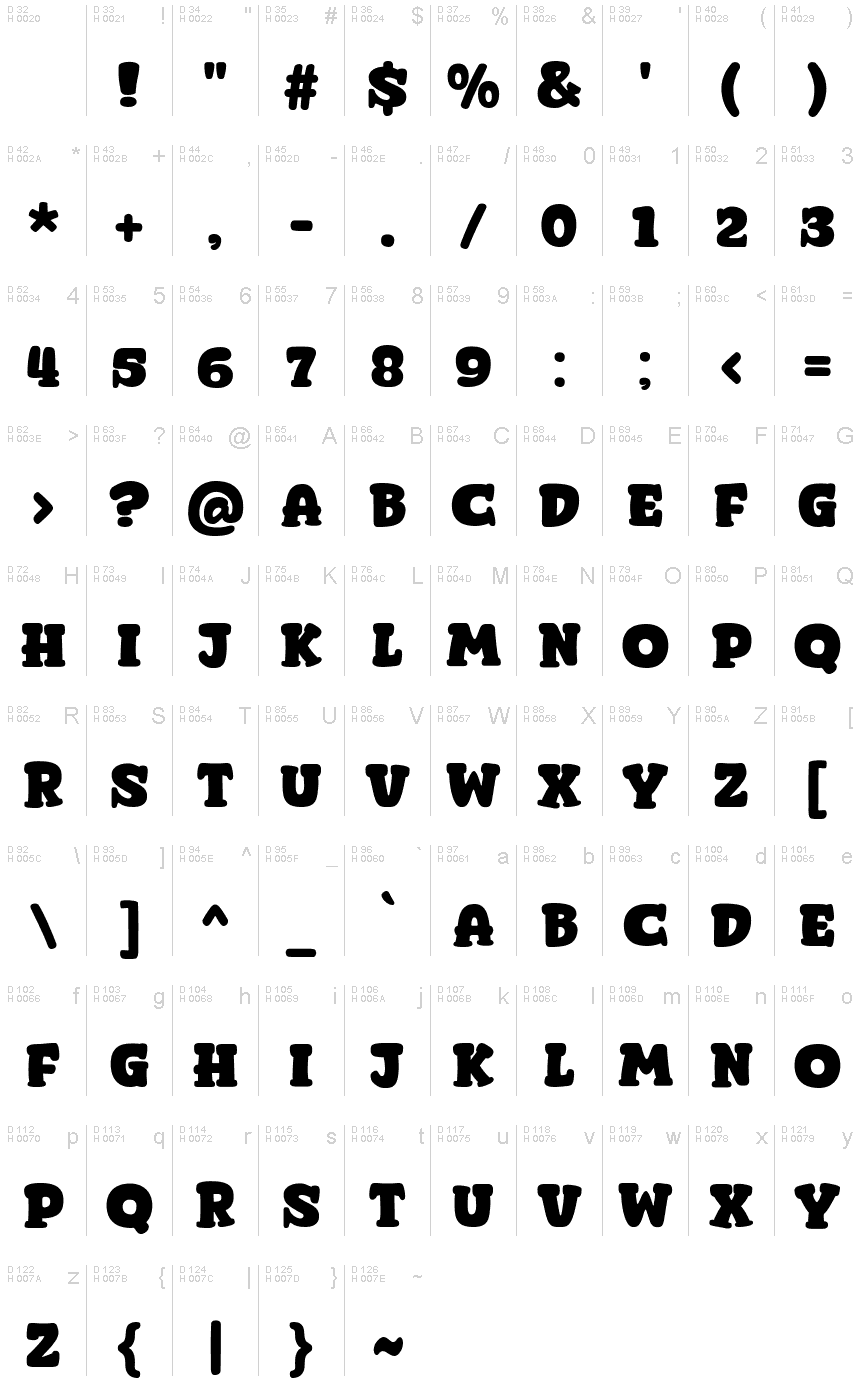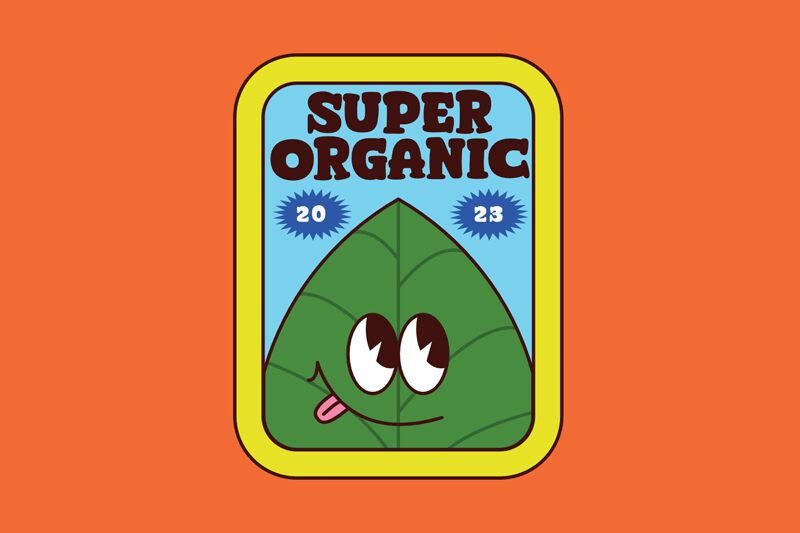
Super Organic
Super Organic, a vibrant and lively display font designed by fsuarez913, is the perfect choice for projects that aim to grab attention and make a bold statement. Its ultra-bold weight adds a touch of confidence and strength to any design.
With its playful cartoon style, Super Organic is ideal for children's books, comic strips, animated films, and toy packaging. Its organic shapes and expressive curves bring characters to life, making it an excellent option for branding campaigns targeting imaginative audiences.